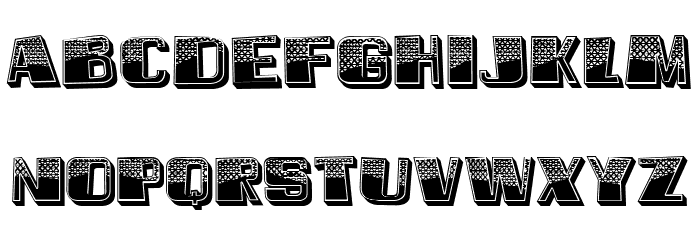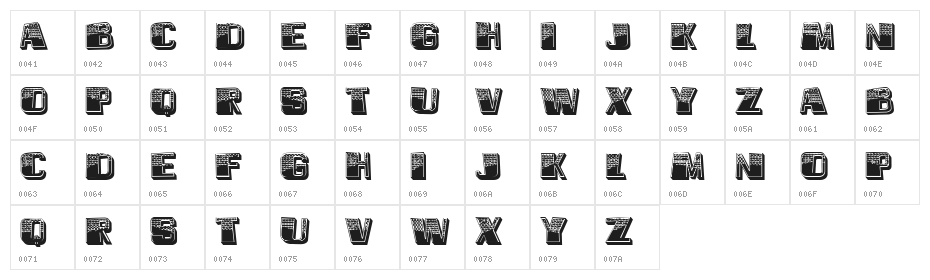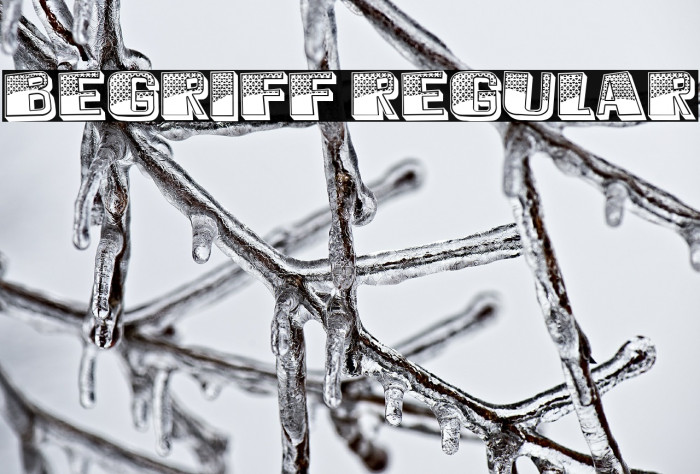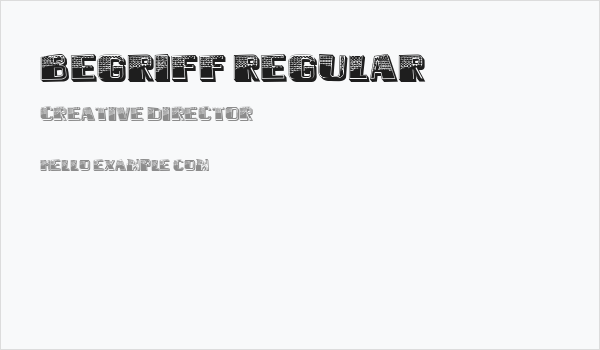
Begriff Regular Font
Begriff Regular Description
This font features a bold, decorative style with a three-dimensional effect. Each character is designed with a thick outline and a dotted pattern filling, giving it a textured appearance. The letters are uppercase and have a strong, impactful presence, making them suitable for attention-grabbing designs. The font's playful yet structured design is reminiscent of retro or comic book styles, adding a sense of fun and creativity to any project. The characters are evenly spaced, ensuring readability while maintaining a unique aesthetic. This font is ideal for projects that require a bold statement or a touch of vintage flair.
| Overall Style | Retro, Decorative |
| Use Case | Headlines, Posters, Logos |
| Proposed Projects | Suitable for posters, comic book covers, retro-themed designs, and any project needing a bold, eye-catching font. |